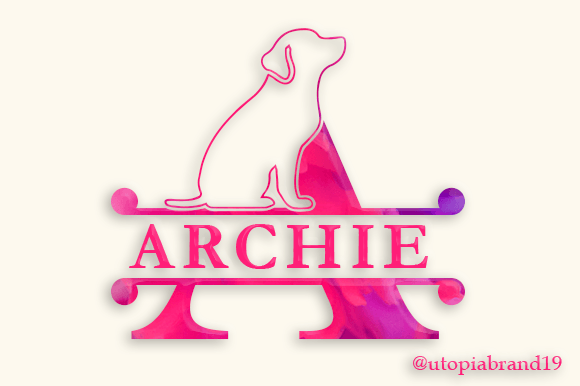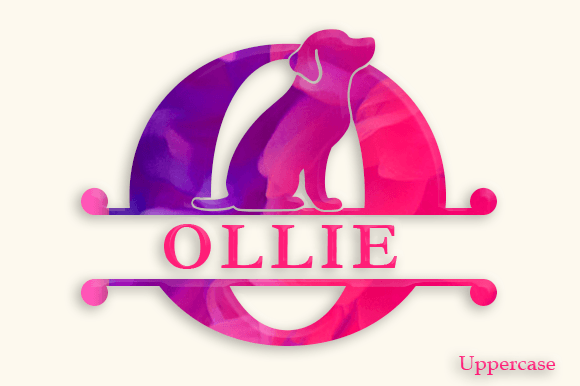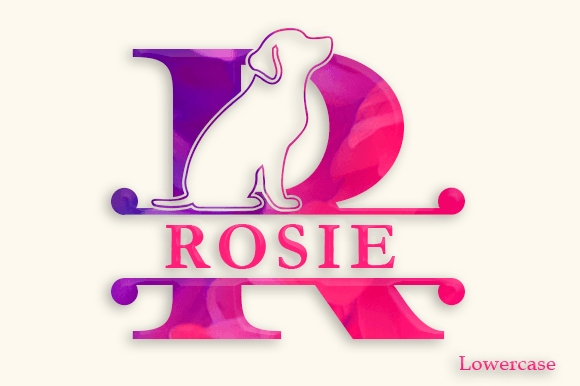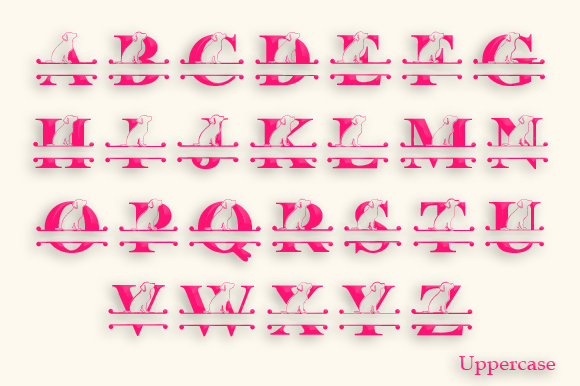
Archie Monogram Font
About the Archie Monogram Font
Explore the possibilities with Archie Monogram Font, a font that offers both beauty and functionality. Archie Monogram is a cute decorative font, featuring lovely puppies. Fall in love with its authentic feel and use it to create gorgeous wedding invitations, beautiful stationary art, eye-catching social media posts, and cute greeting cards.
Archie Monogram’s playful, friendly personality makes it ideal for projects requiring a touch of charming whimsy. It excels in applications like branding for pet-related businesses, children’s products, wedding stationery, or social media graphics where its decorative style adds visual appeal. However, its decorative nature limits its effectiveness in body text or UI elements where legibility is paramount. Avoid using it for large blocks of text or in situations demanding high readability.
For optimal visual balance, pair Archie Monogram with a clean sans-serif font like Open Sans for body copy, ensuring contrast and maintaining readability. Alternatively, a simple serif font such as Lora could create a sophisticated and harmonious pairing, lending a touch of classic elegance to offset the font’s playful nature. Consider using a script font for emphasis or smaller text elements, but only sparingly.
Archie Monogram Font Usage Examples
Archie Monogram Font Example